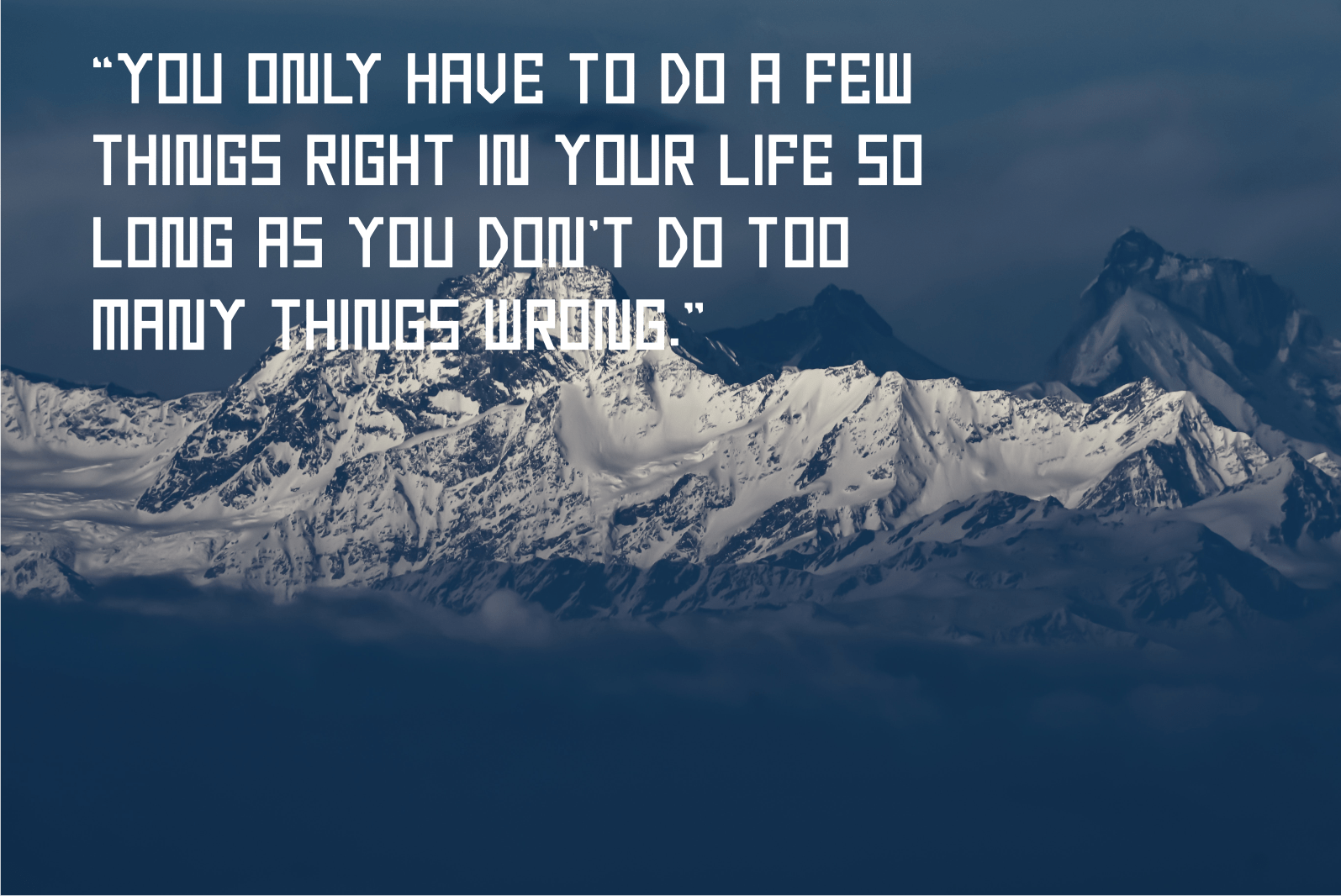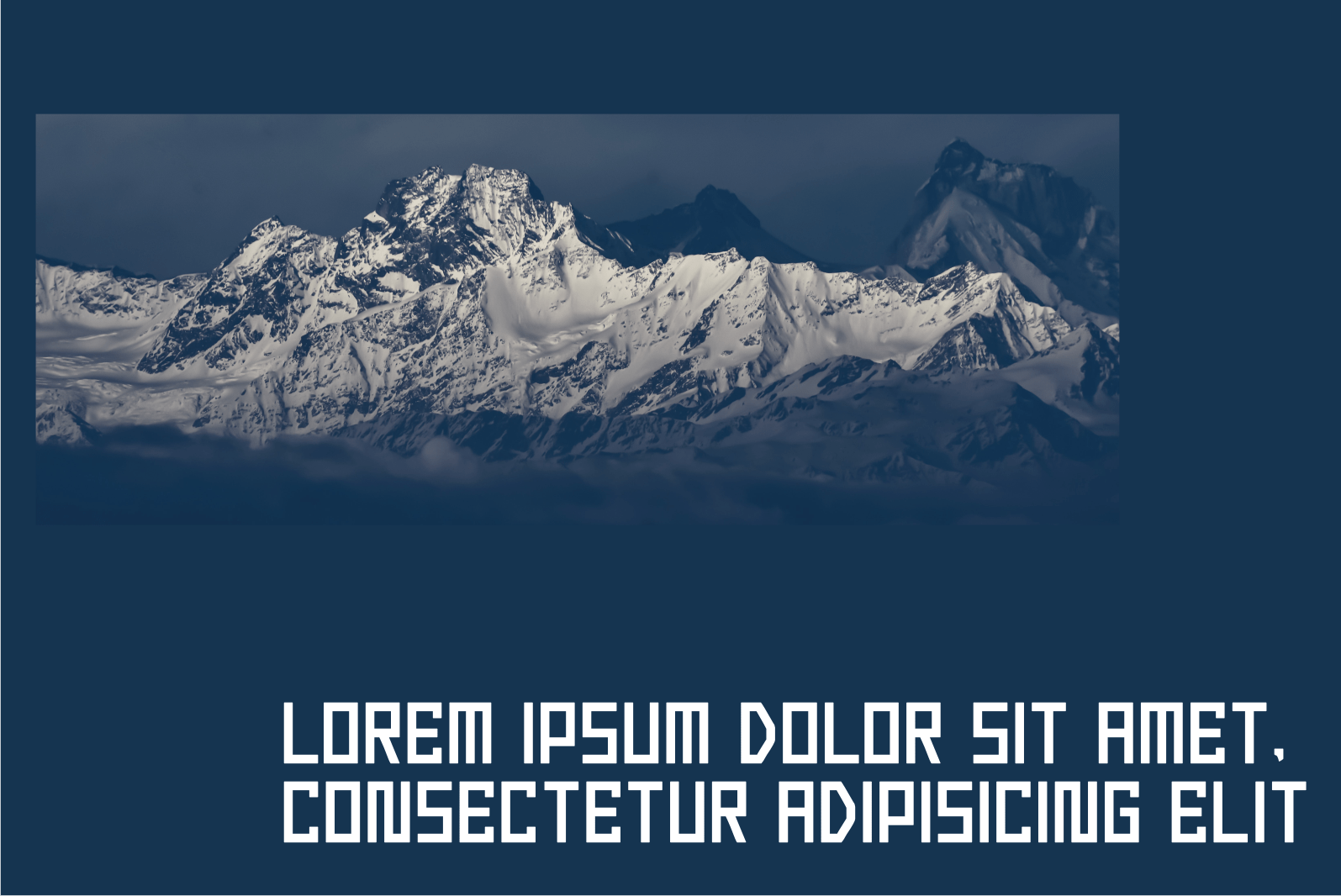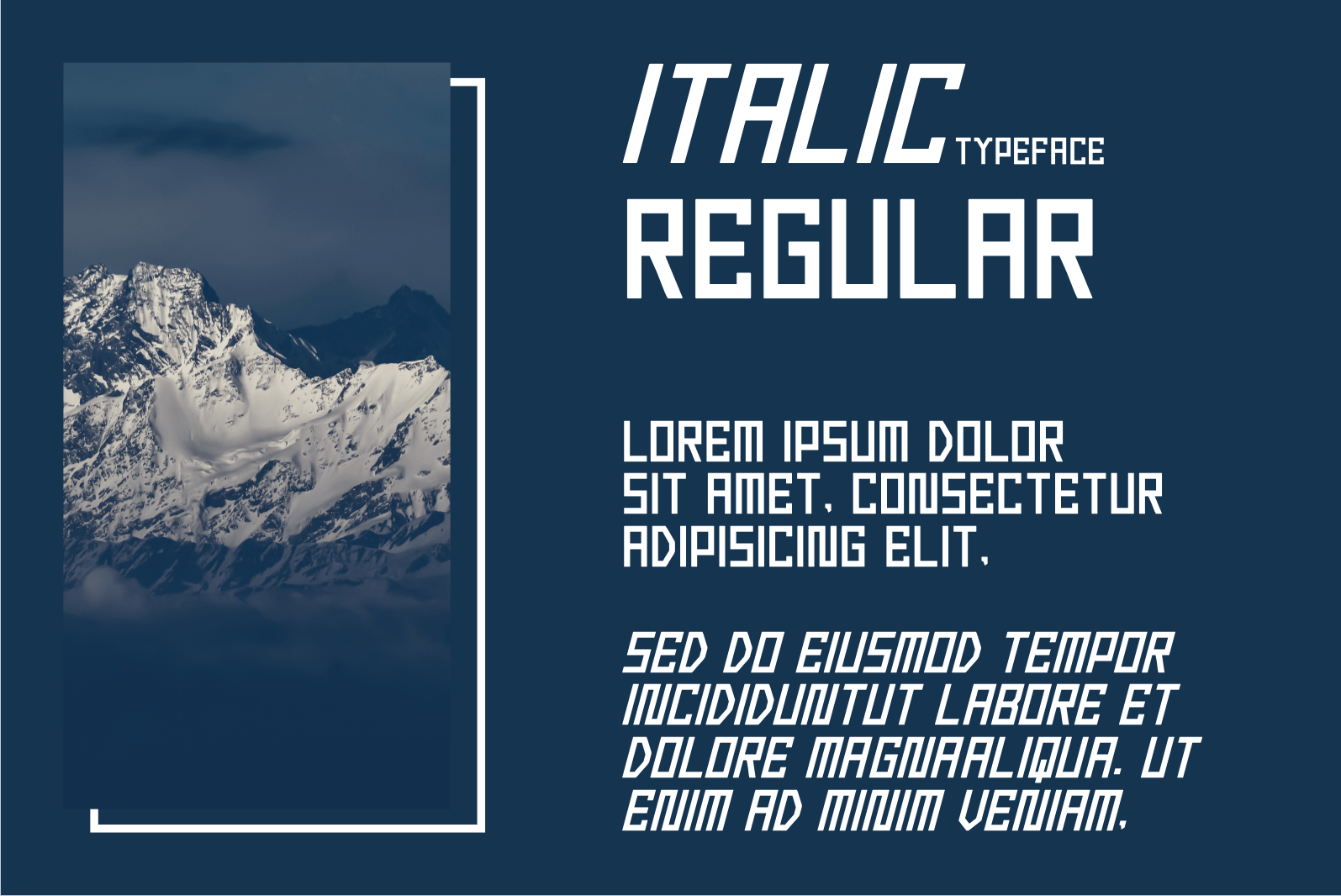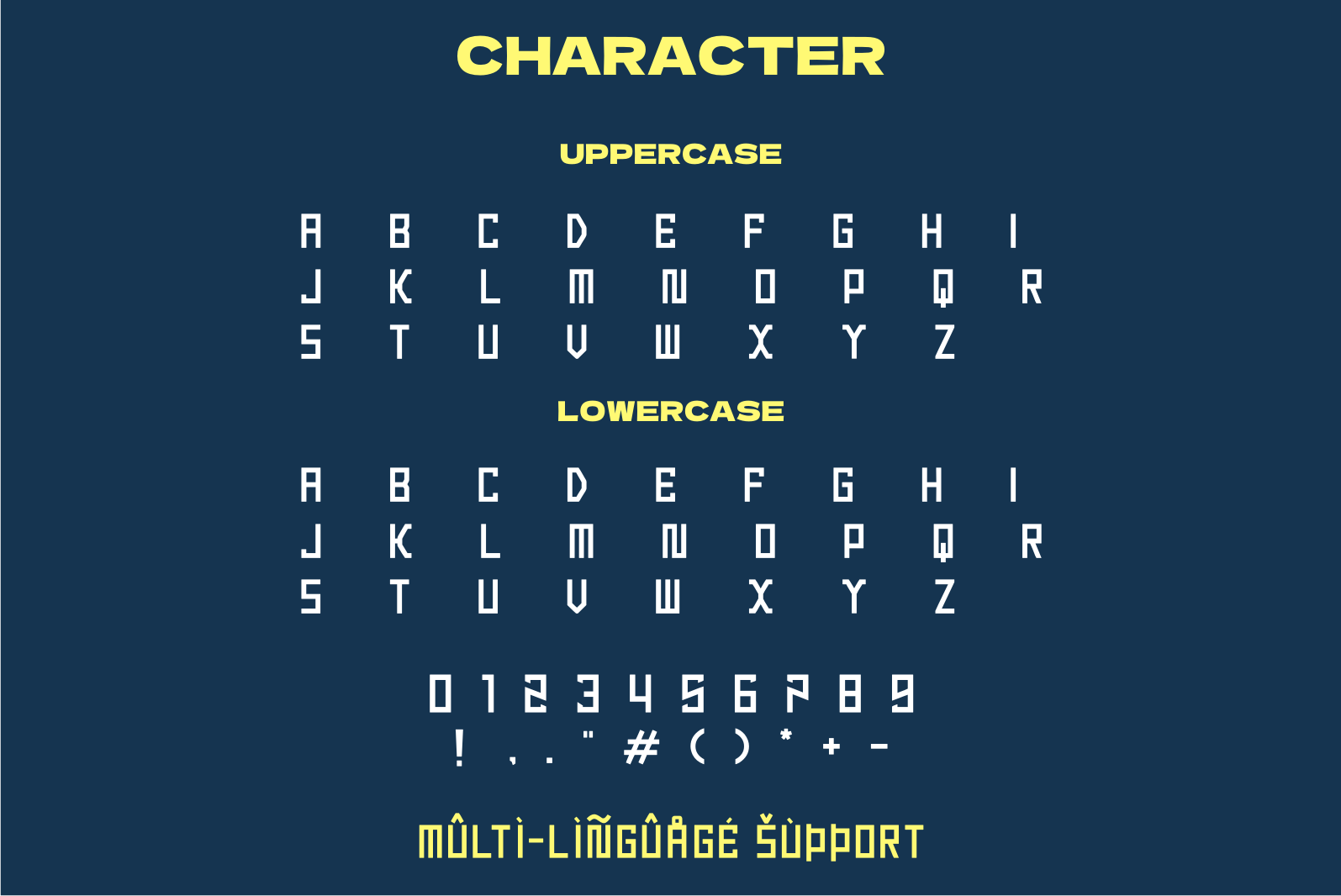
Bageor Font
Bageor Display Font
It’s a cool and robotic-styled display font. This font is ideal for writing web designs, business cards, or pretty much anything else that requires a futuristic touch.